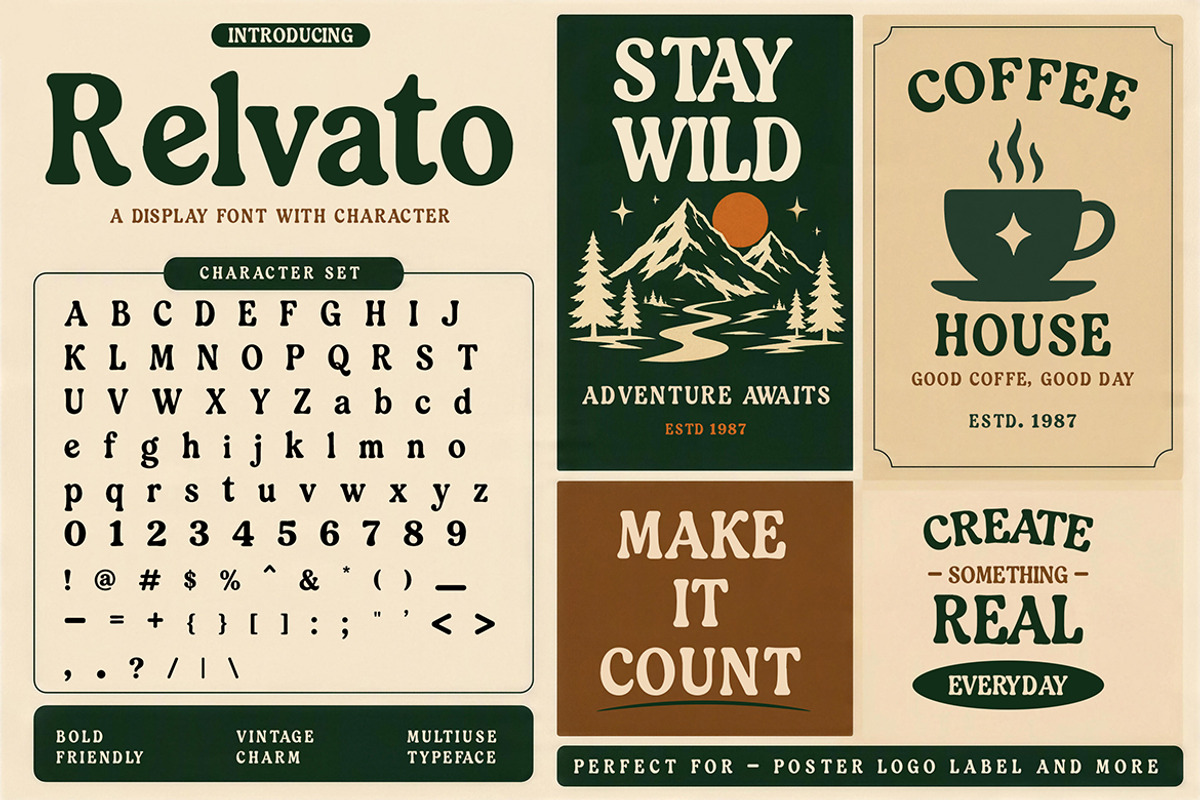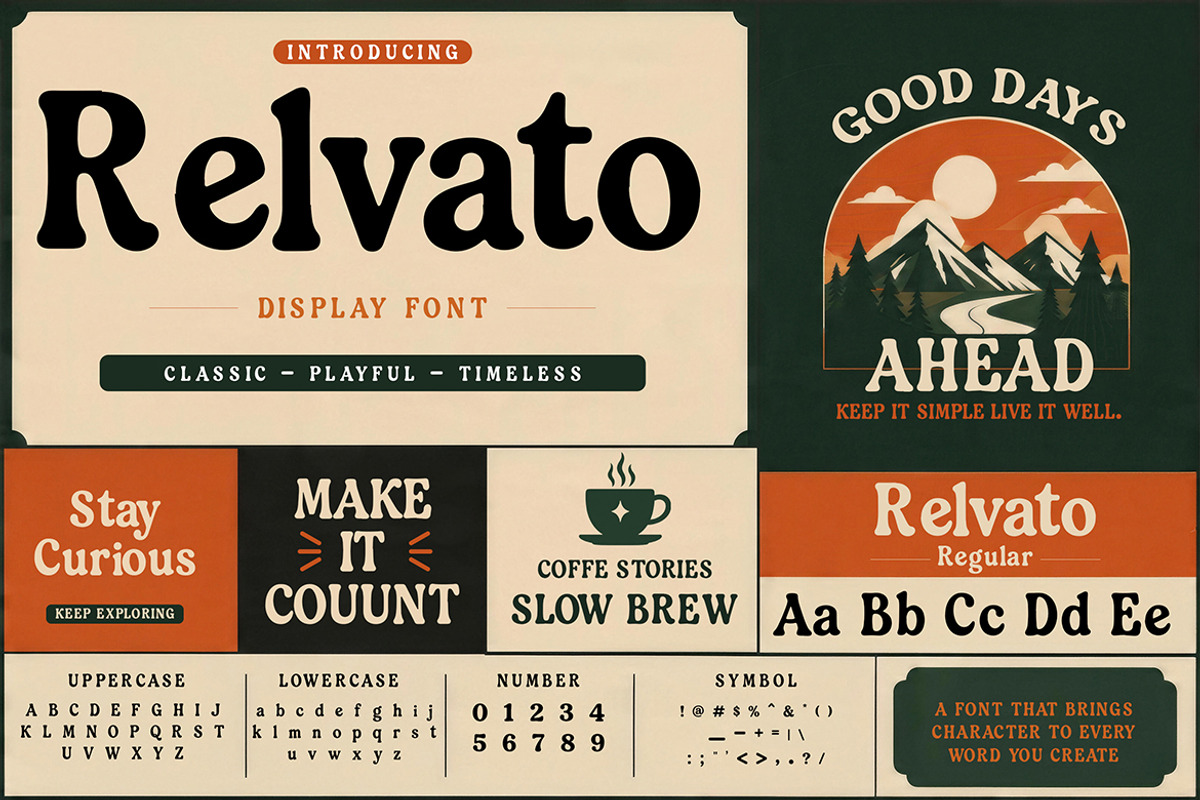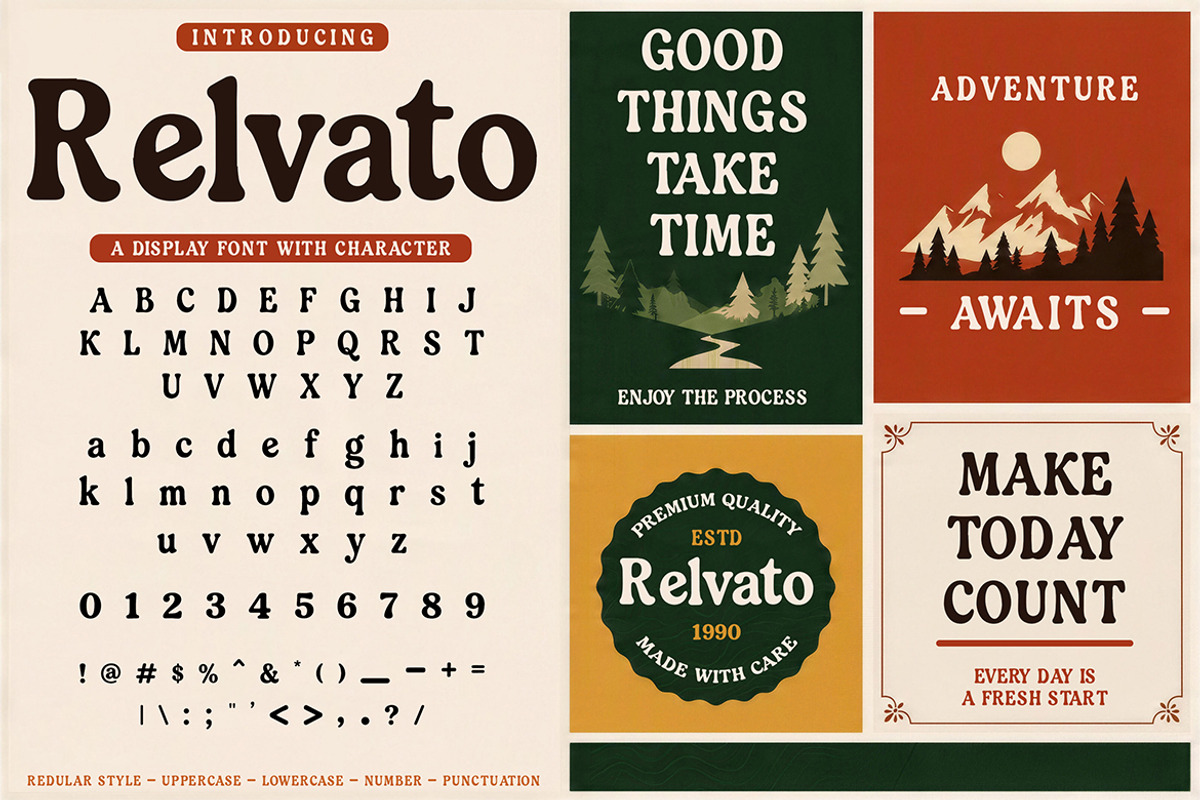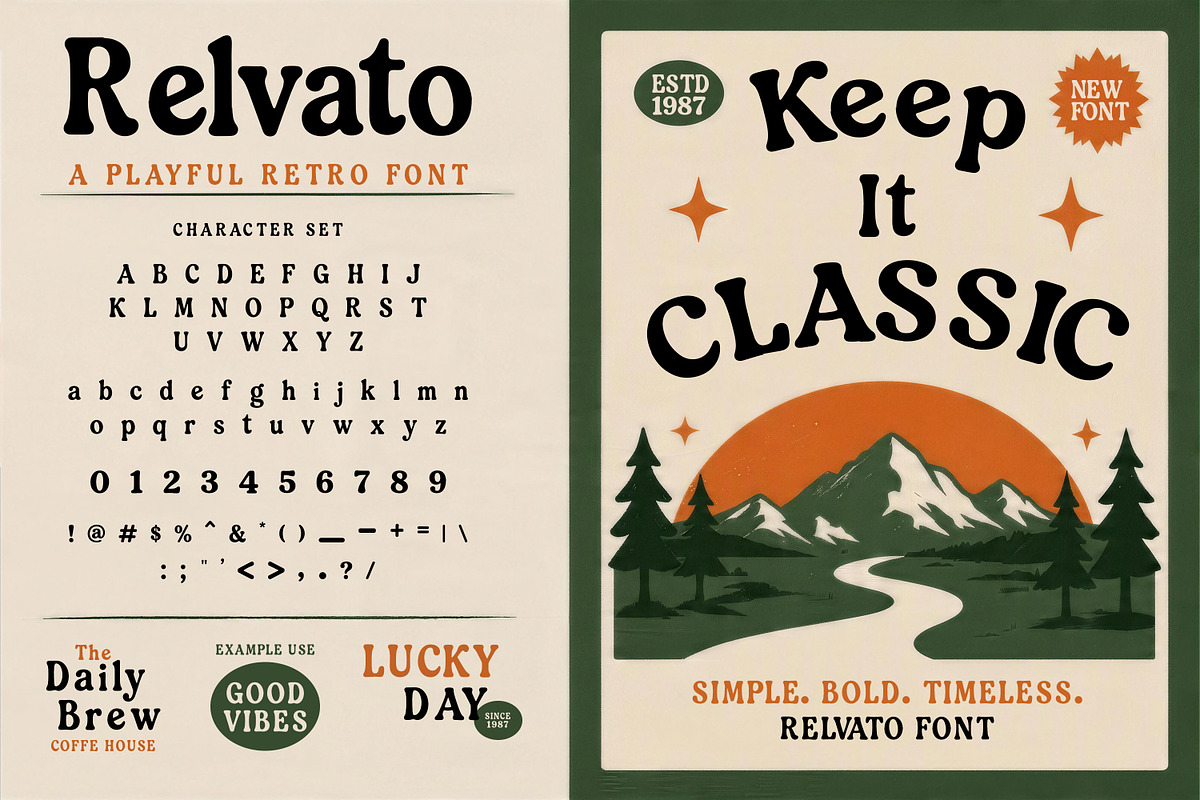
Relvato
Relvato is a playful retro display font with a bold, nostalgic personality inspired by classic print design and vintage outdoor graphics. Its chunky serif forms, slightly irregular character shapes, and friendly handcrafted feel create a strong visual presence while keeping the style warm and approachable. Perfect for projects that need a timeless retro mood with a fun, expressive twist.
Vintage branding and logo design
Retro posters and merchandise
Coffee shop and food packaging
Outdoor and adventure graphics
Editorial headlines and social media designs
With its bold retro character and playful vintage charm, Relvato is a versatile choice for creating memorable designs with a classic yet fresh personality.